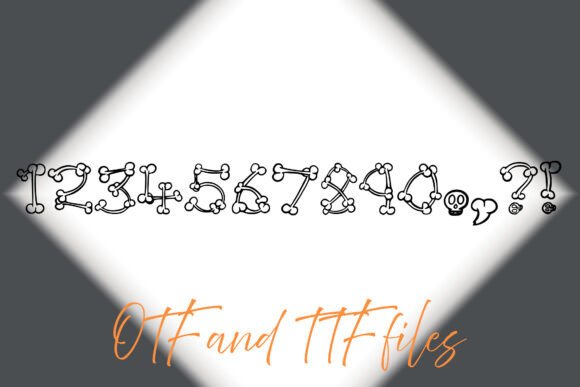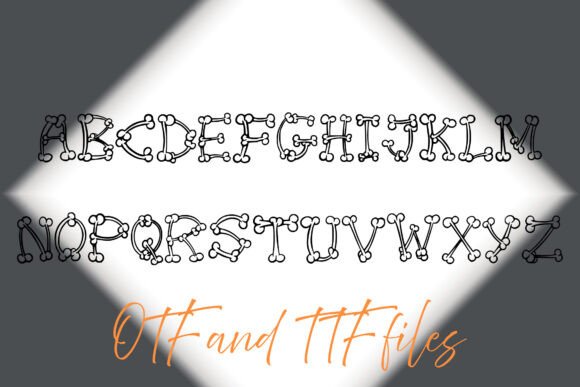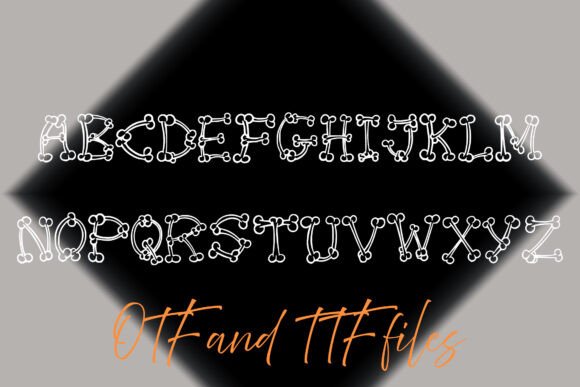
Unleash the Spooky Fun with Dem Bones Font: A Unique Bone-Themed Font for Designers
Are you looking for a font that adds a touch of spookiness to your designs? Look no further than Dem Bones Font, a unique and creative bone-themed font that’s perfect for Halloween, pirate parties, and skeleton-inspired artwork. This font is sure to bring a playful yet eerie vibe to your projects, making it a must-have for designers and crafters alike.
What Makes Dem Bones Font So Special?
Dem Bones Font is a one-of-a-kind font that features letters creatively formed using detailed bones. The intricate design of each letter makes it perfect for horror movie titles, eerie invitations, and creepy branding. The font’s unique design is sure to grab attention and add a touch of spookiness to any project.
Perfect for Halloween and Pirate-Themed Designs
Halloween is just around the corner, and Dem Bones Font is the perfect addition to your design toolkit. Use it to create spooky invitations, eerie event posters, or creepy branding for your haunted house or pumpkin patch. The font is also perfect for pirate-themed designs, adding a touch of swashbuckling fun to your projects.
Dem Bones Font is versatile and can be used for a wide range of design projects. Here are some ideas to get you started:
- Horror movie titles and posters
- Eerie invitations for Halloween or haunted events
- Creepy branding for haunted houses, pumpkin patches, or horror-themed businesses
- Skeleton-inspired artwork and illustrations
- Pirate-themed designs, including treasure maps and pirate flags
- Fun and spooky DIY projects, such as party decorations or gift tags
Why Choose Dem Bones Font?
So why choose Dem Bones Font for your design projects? Here are just a few reasons:
- Unique design: Dem Bones Font features a one-of-a-kind design that’s sure to grab attention.
- Versatile: The font can be used for a wide range of design projects, from horror movie titles to pirate-themed designs.
- Spooky yet playful: Dem Bones Font adds the perfect amount of spookiness to your designs, making it perfect for Halloween and other spooky events.
Tips for Using Dem Bones Font
Here are a few tips for using Dem Bones Font in your design projects:
- Experiment with different sizes and colors: Try out different sizes and colors to see what works best for your design.
- Pair with other fonts: Pair Dem Bones Font with other fonts to create a unique and eye-catching design.
- Add graphics and illustrations: Add graphics and illustrations to enhance your design and make it more visually appealing.
- Use for headlines and titles: Use Dem Bones Font for headlines and titles to add a touch of spookiness to your design.
Dem Bones Font is a unique and creative bone-themed font that’s perfect for designers and crafters looking to add a touch of spookiness to their projects. With its intricate design and versatile uses, it’s a must-have for anyone looking to create spooky yet playful designs. So why wait? Download Dem Bones Font today and start creating your own spooky masterpieces!
Whether you’re a professional designer or a crafty DIY enthusiast, Dem Bones Font is sure to inspire your creativity and add a touch of spookiness to your designs. So don’t be afraid to get creative and have fun with it!